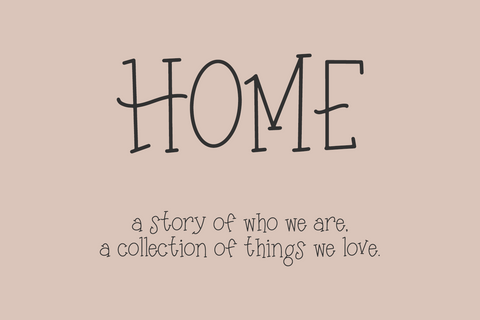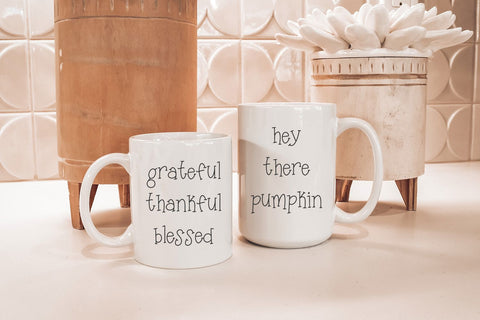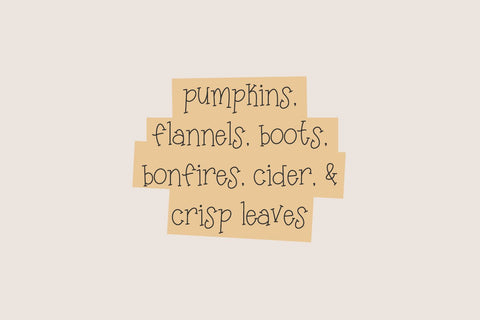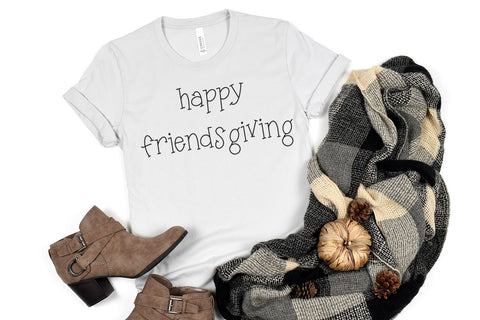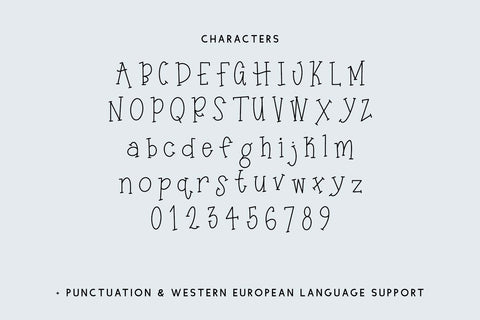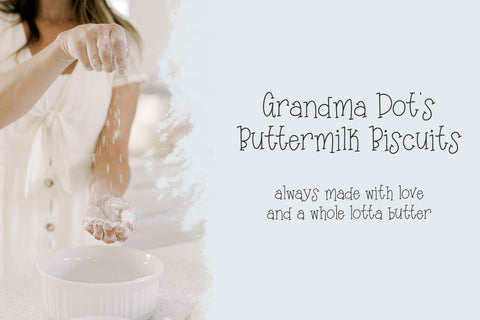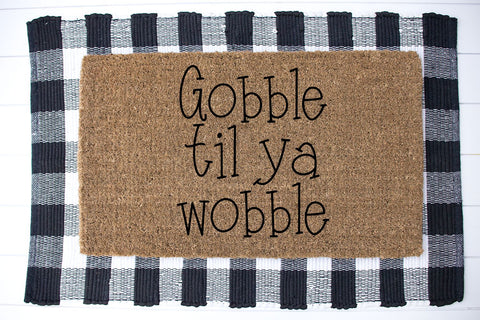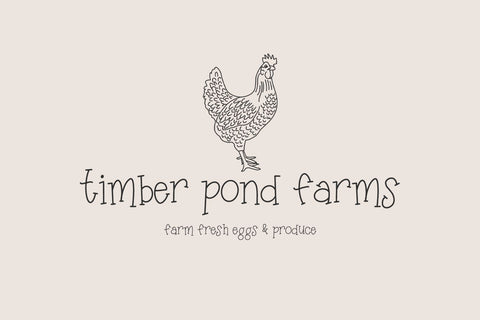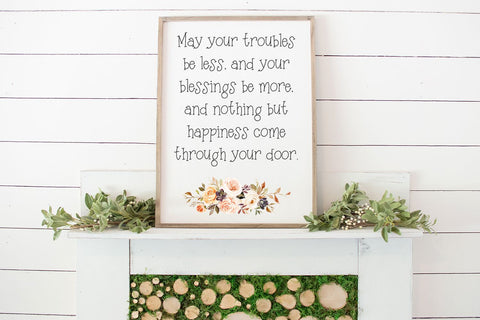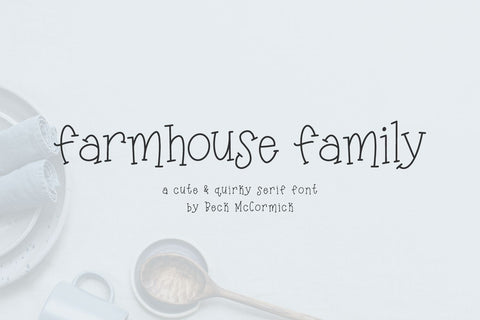
Farmhouse Family Serif Font
Meet Farmhouse Family, a cute & quirky handwritten serif, perfect for your rustic and farmhouse projects.
Farmhouse Family is best for:
- feminine, crafty projects with your Cricut or Silhouette machine, or your SVG design business
- whimsical farmhouse decor and crafts
- logos + branding
- website design + website accents, blog design
- quote graphics for social media
- feminine graphic tee shirt design & other apparel
Farmhouse Family includes:
- full uppercase and lowercase characters
- numbers + punctuation
- Western European Language Support